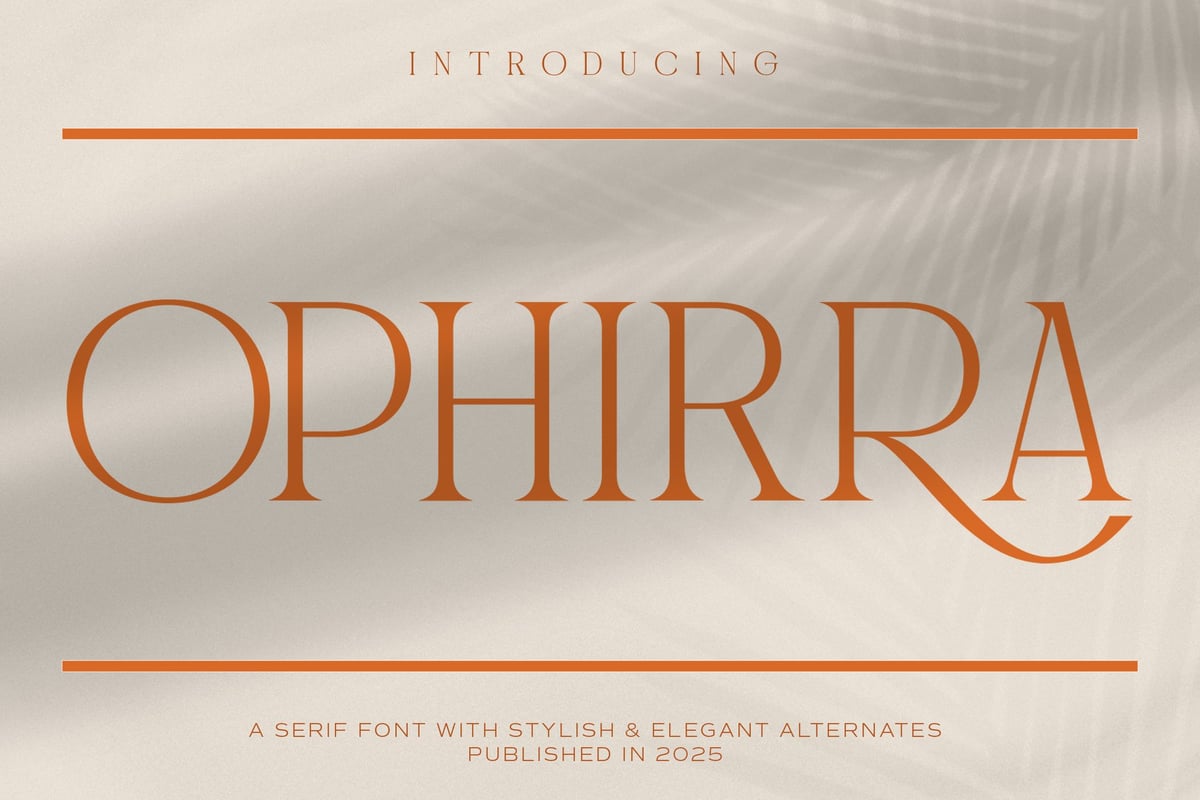
Ophirra – Elegant Serif Font
Ophirra is the serif typeface that makes every design feel like it costs more.
This refined serif font blends classic elegance with a modern sensibility — clean lines, graceful curves, and beautifully crafted stylistic alternates combine to create a typeface that feels both timeless and current. Whether you're designing a luxury brand identity, editorial layout, wedding invitation, or premium product packaging, Ophirra delivers the sophistication your project demands.
- Uppercase and lowercase letters
- Numerals, punctuation, and symbols
- Elegant stylistic alternates
Versatile enough for a wide range of premium design applications, Ophirra speaks the language of elegance and class — blending tradition and trend in perfect harmony.